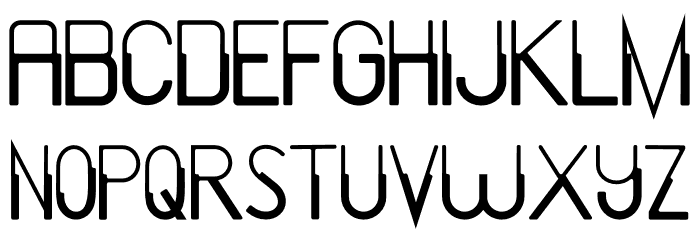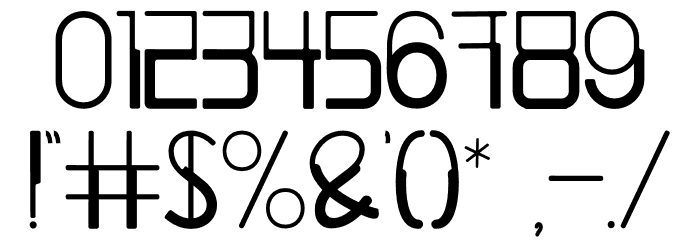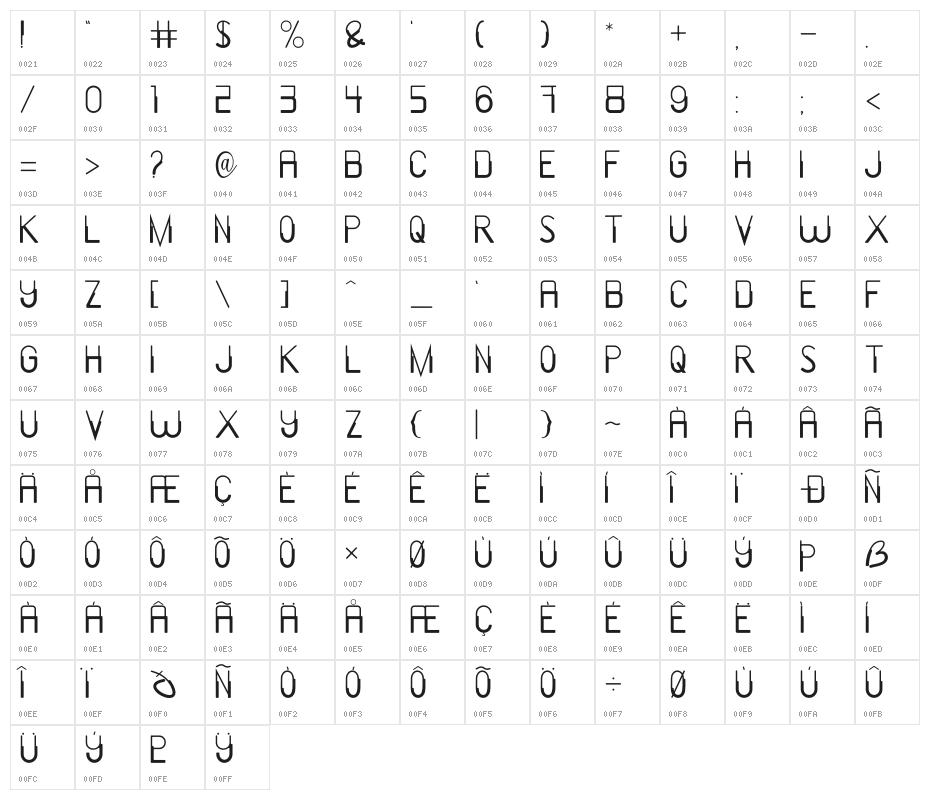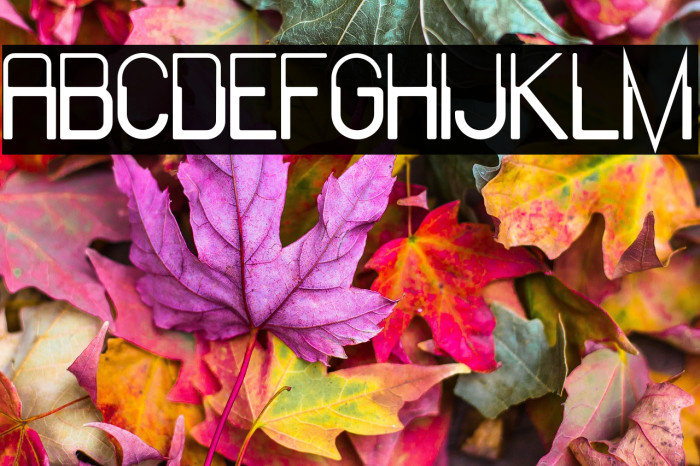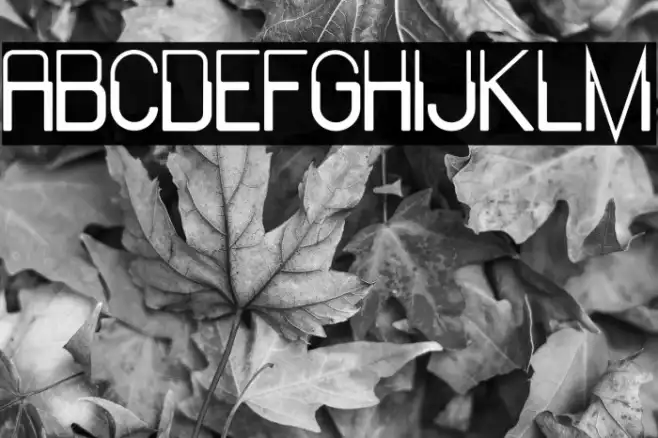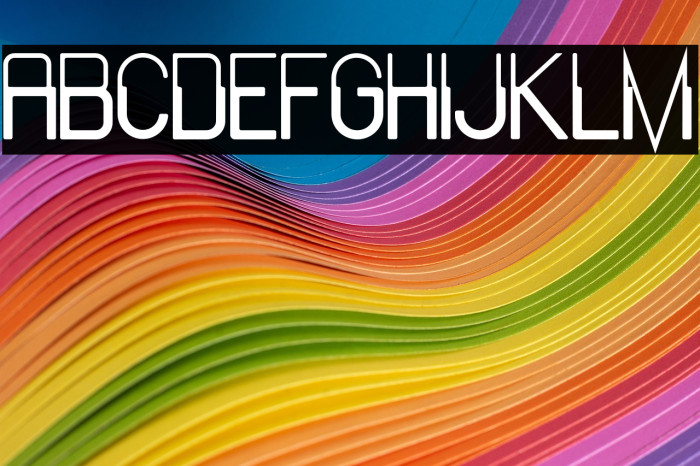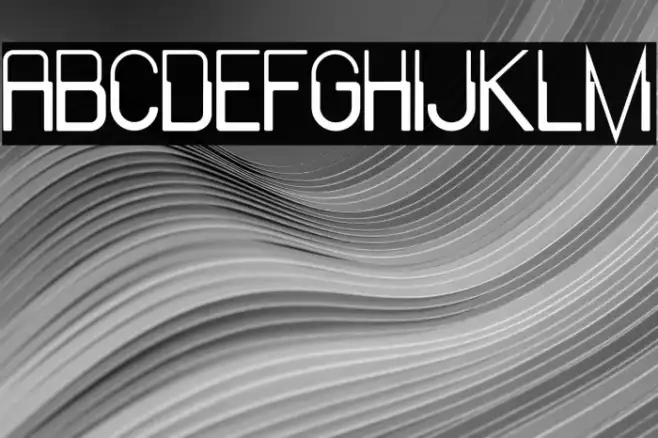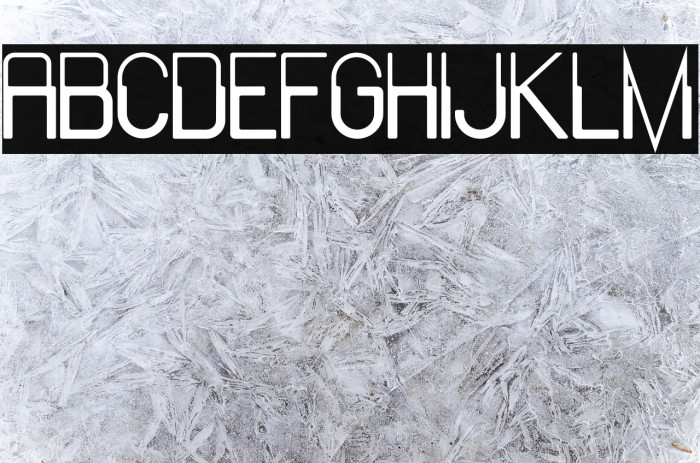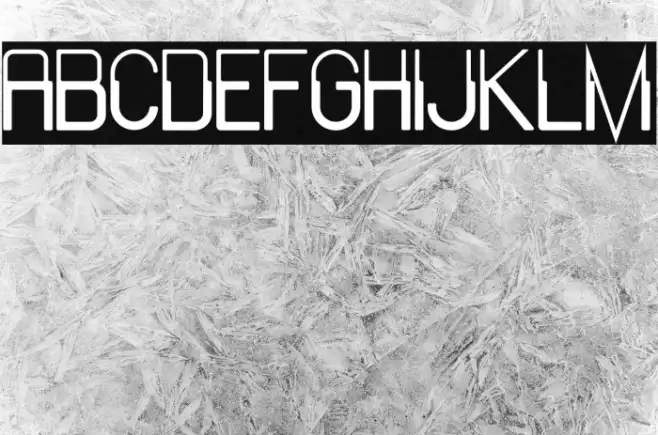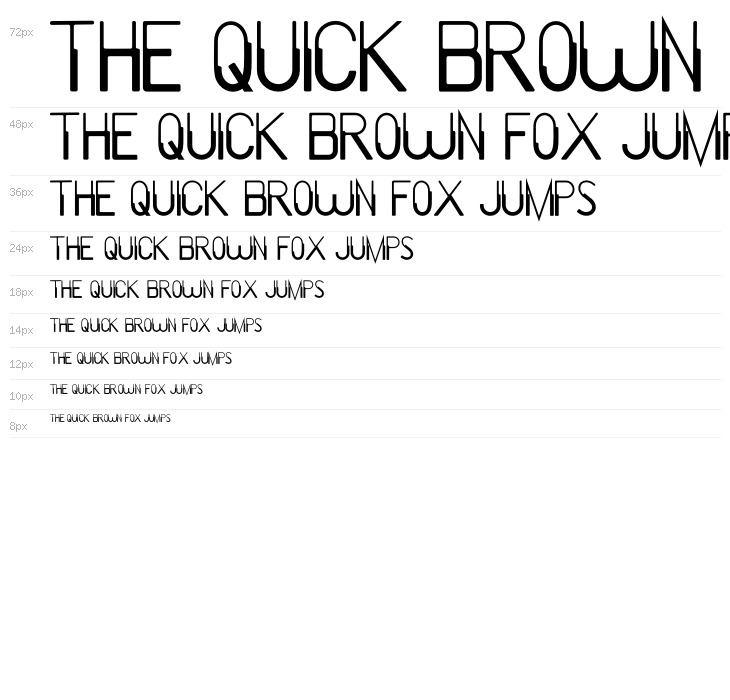
Malachite Font
This font features a modern, geometric design with a unique blend of sharp angles and smooth curves. The uppercase letters are bold and structured, creating a strong visual impact. The lowercase letters maintain a similar style, offering a cohesive look across different text cases. The numerals are distinct and easy to read, with a consistent width that complements the overall design. Special characters are creatively integrated, maintaining the font's geometric aesthetic. This font is ideal for projects that require a contemporary and eye-catching typeface.
A modern, geometric font with bold, structured uppercase and cohesive lowercase letters.
- Font: Malachite
- Proposed Projects: Ideal for branding, advertising, posters, and digital media projects that require a striking and modern typeface.